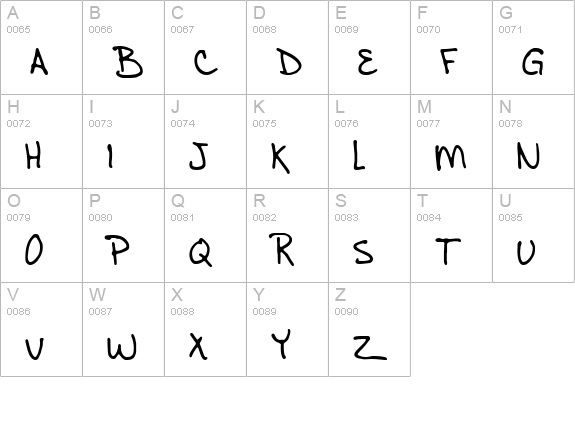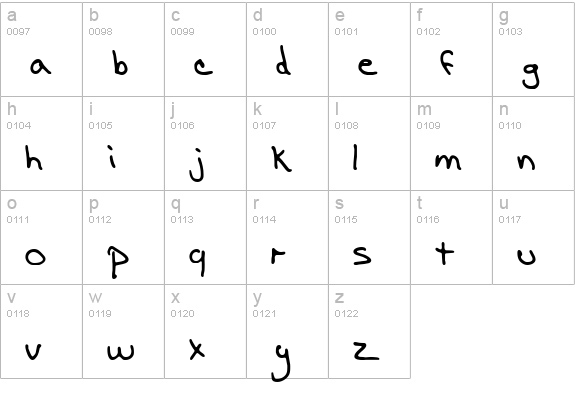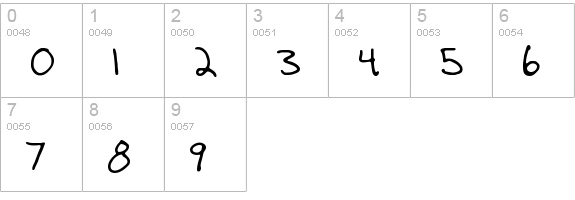
Ænigma Scrawl (BRK) Font Details
Ænigma Scrawl (BRK) font is a unique and captivating typeface that exudes a sense of mystery and enigma. Its hand-drawn style gives it a raw and edgy appearance, making it perfect for projects that require a touch of creativity and individuality. The irregular lines and shapes of this font create a sense of chaos and intrigue, adding a dynamic element to any design. This font is not only visually striking but also versatile, suitable for a wide range of applications including posters, logos, branding, and more. Its bold and expressive nature will make your text stand out and grab attention. And the best part? Ænigma Scrawl (BRK) font is completely free to download at FontsMarket.com. So go ahead and unleash your creativity with this captivating and enigmatic typeface today!